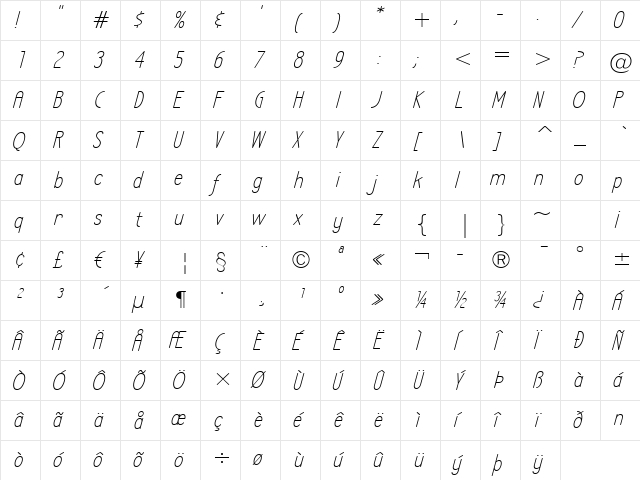
LA Headlights BTN Lt Italic Font Preview
Design Context for LA Headlights BTN Lt Typeface
LA Headlights BTN Lt takes a measured approach to typography — its balanced proportions and neutral character make it a reliable workhorse for both digital and print work. The slanted form adds forward momentum and visual energy. Its slender proportions lend an understated elegance to any composition.
Pro Tip: Try LA Headlights BTN Lt for annotation and caption copy alongside an upright companion — the contrast in angle creates a dynamic but ordered typographic system.